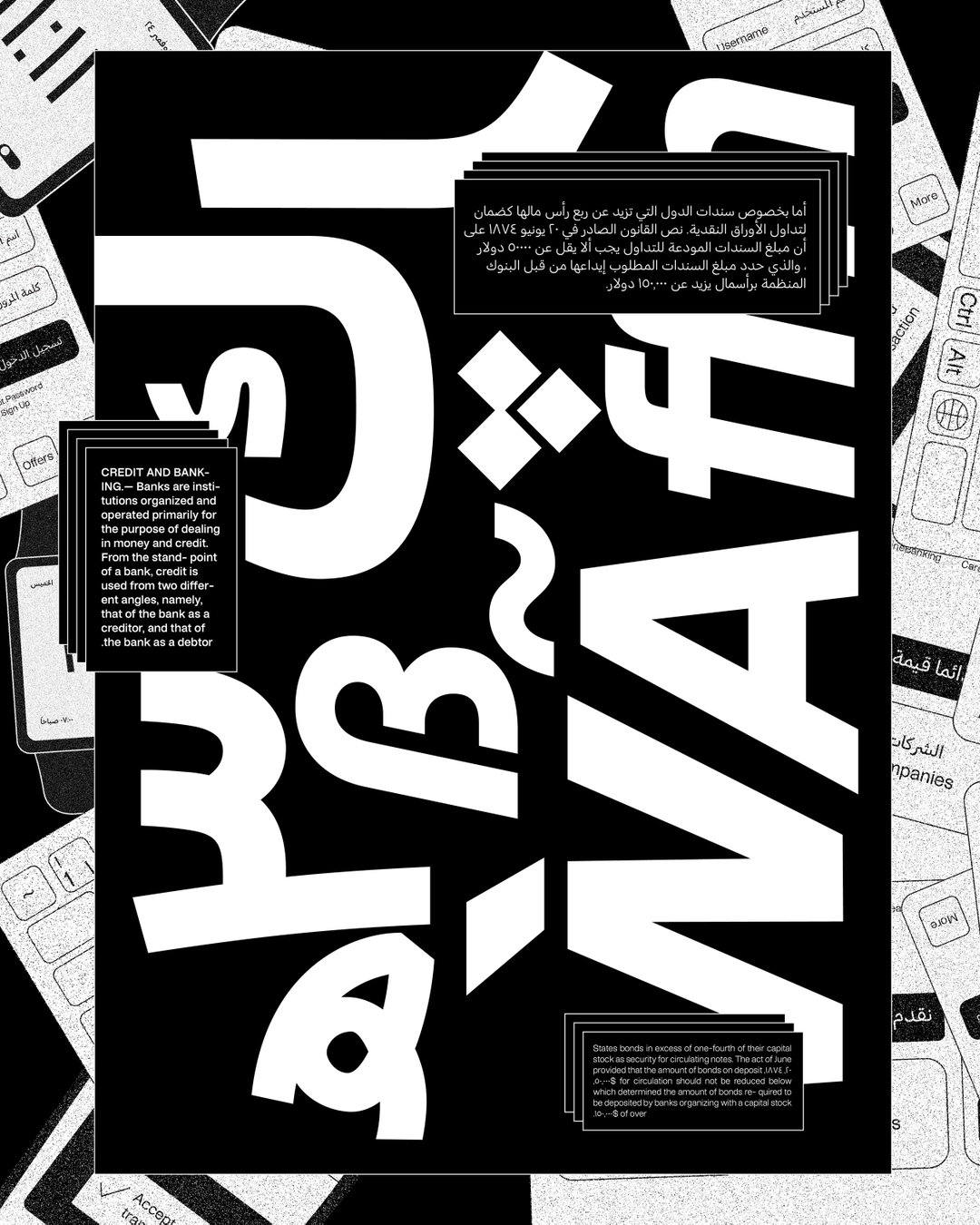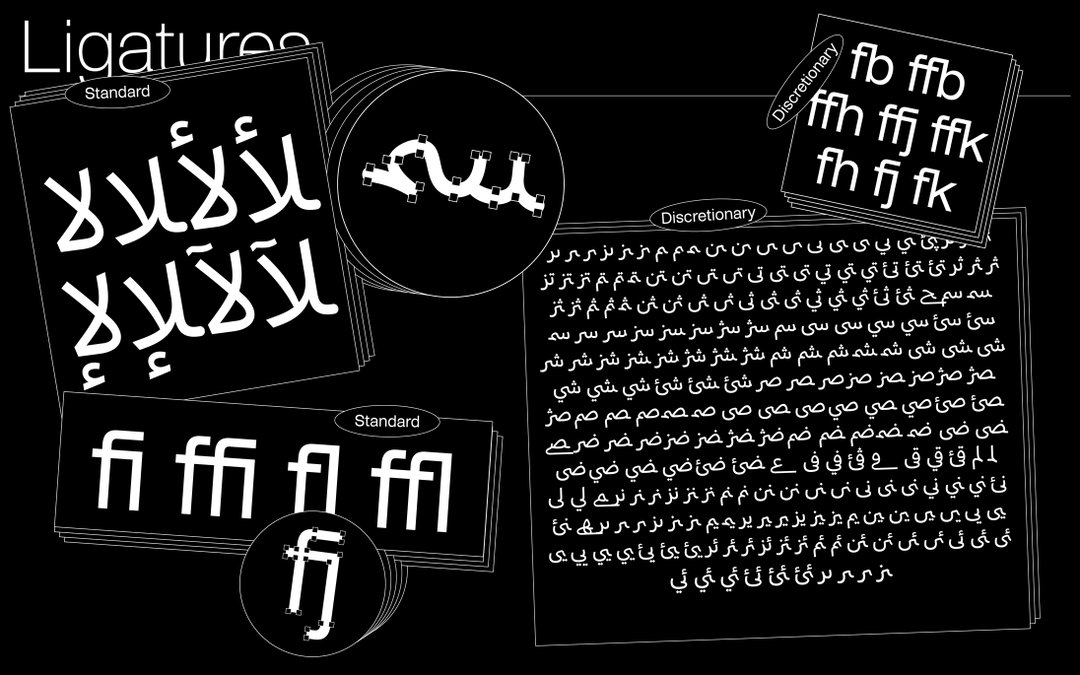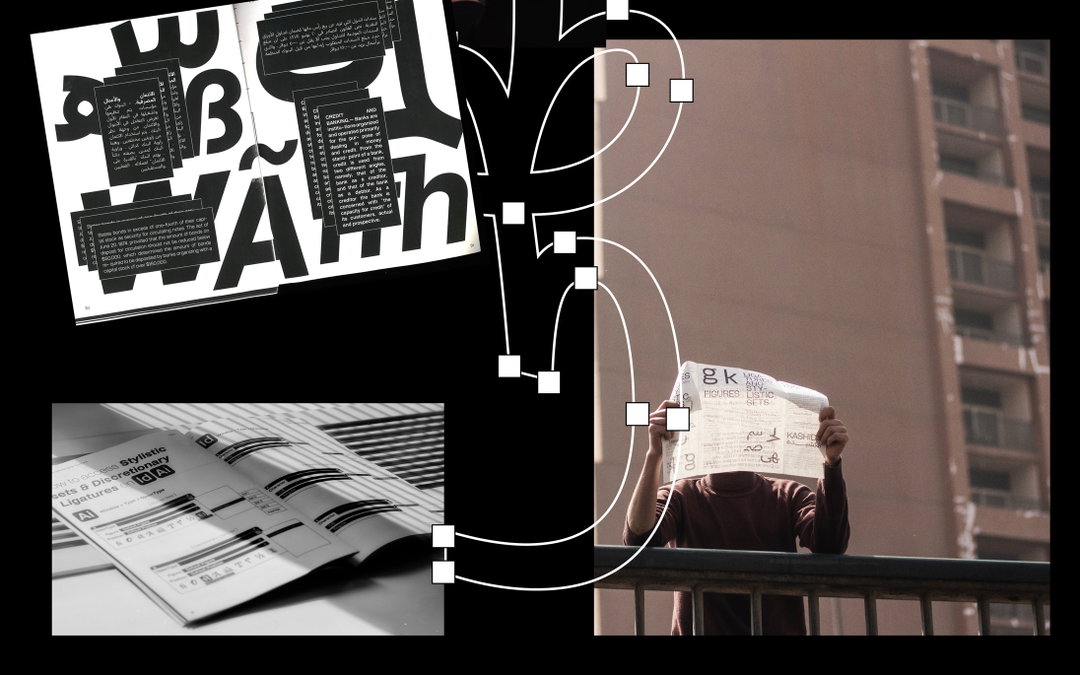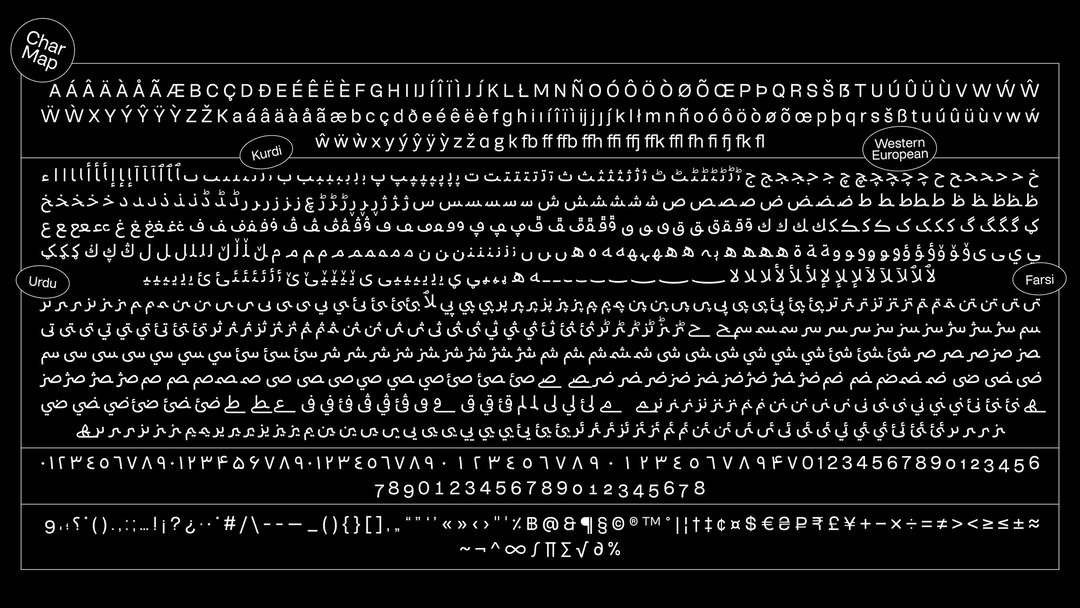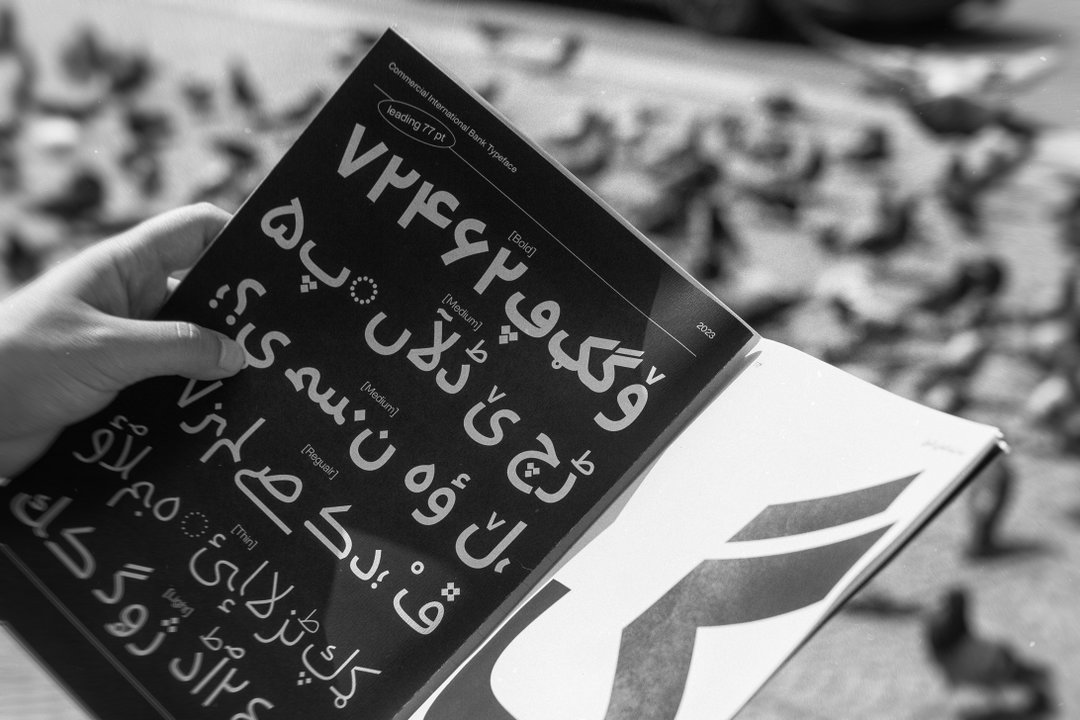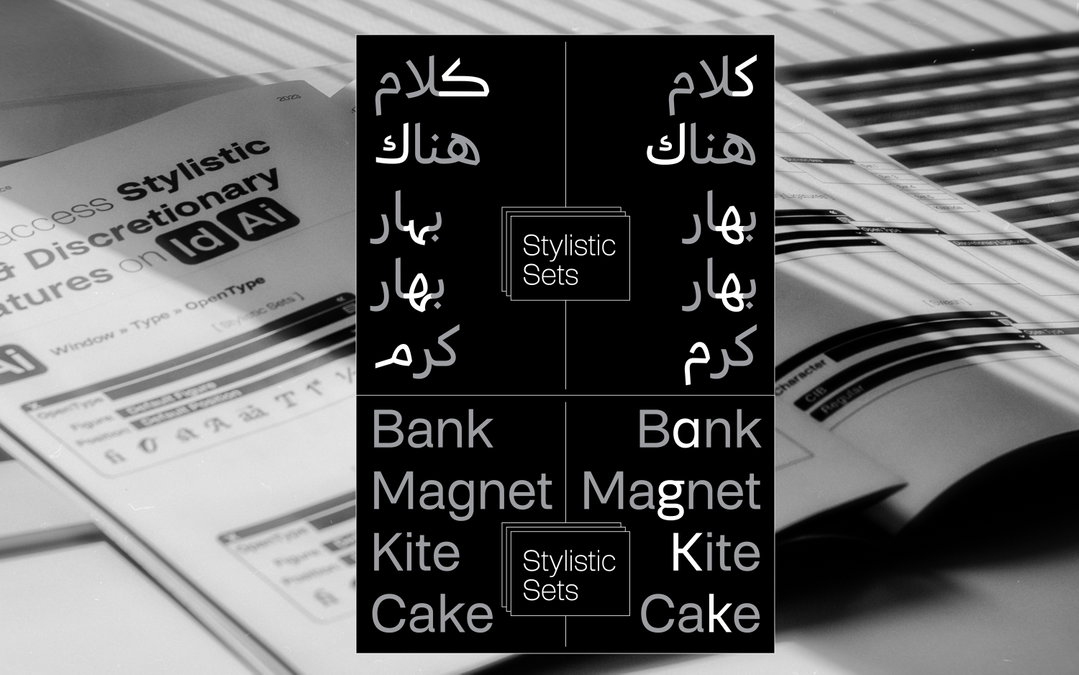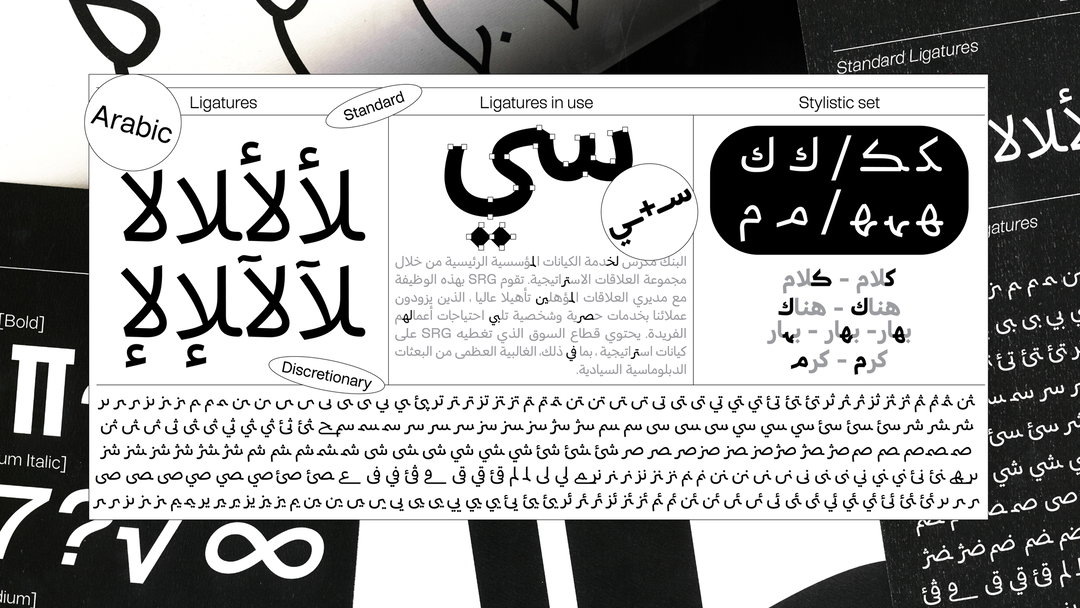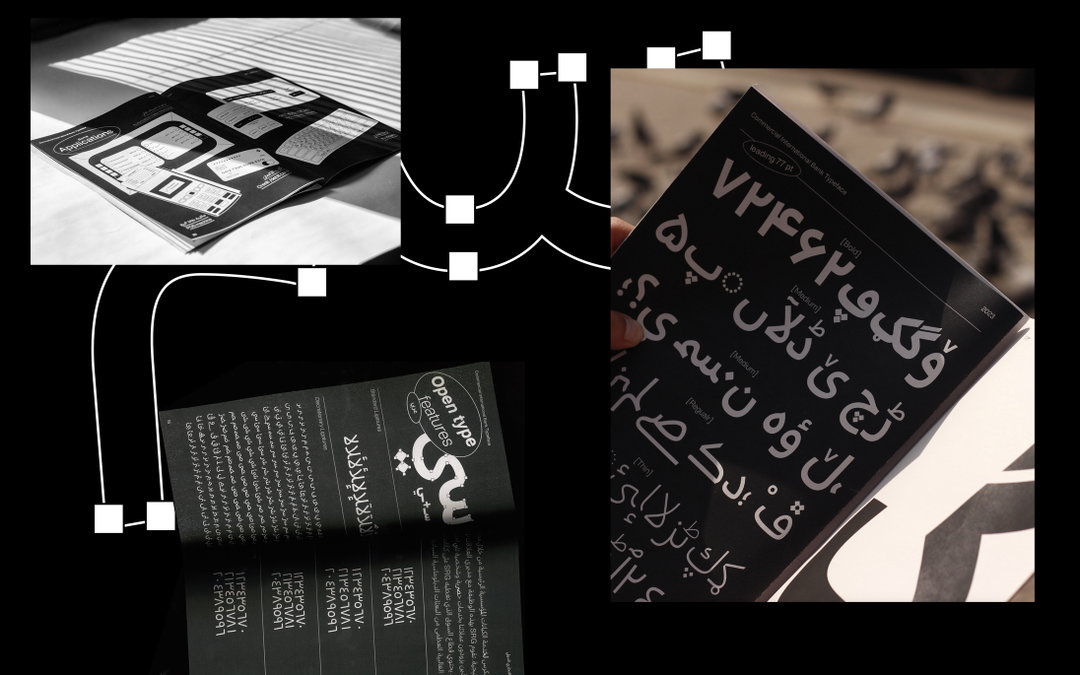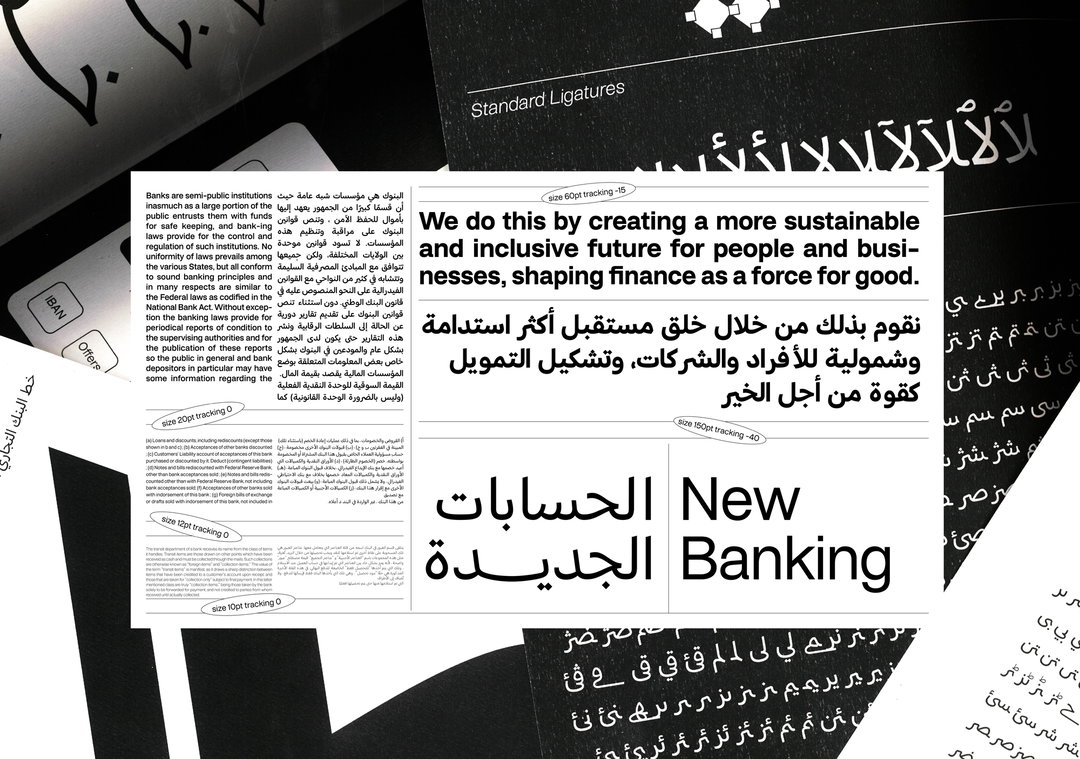
Ntsal and Boharat unveil the very first custom typeface for a bank in Egypt
Rather than relying on a “matching making approach” – whereby Arabic follows Latin letterforms – CIB’s bi-scriptual typeface honours both equally.
Ntsal’s chamber of design – the design wing of the Cairo-based studio – has produced the first custom typeface for an Egyptian bank with Boharat, the Arabic type foundry. The work is for one of the largest banks in the Egyptian private sector, CIB, and marks a growing shift in attitudes and approach in the commercial sector towards type design. In this case, Ntsal Cairo and Boharat have replaced CIB’s previous design approach, in which Arabic scripts followed Latin letterforms, by creating the two in parallel.
“The starting point while approaching this project was to create something that prioritises the language of the country the client operates from – in this case Arabic,” the studio tells us. “Ntsal’s collaboration with Boharat Type Foundry involved extensive research into Arabic typography, specifically in terms of drawing and proportions of the letters.”
CIB Custom Typeface is grotesque with multiple weights for use across different channels; it supports basic Latin and Arabic, as well as Western European characters, Urdu and Persian. Stylistically, it offers a fresh take on CIB’s original Naskh Arabic Script – the legible benchmark used for Arabic letterforms when typesetting long paragraphs.
The overarching aim for Ntsal and Boharat was to create a sense of harmony between both Arabic and Latin scripts. More specifically, the pair were trying to create a monolinear typeface that could work with the “organic flow of Arabic calligraphy”. On the journey to represent Arabic calligraphy authentically, one of the most important elements to work in was Kashida – a type of cursive justification used in Arabic script, whereby text can be elongated, rather than using empty space. Here, the goal was to create a curved extension, “which is a genuine humanistic feature of Arabic calligraphy”, says Ntsal.
CIB includes a number of features made for bank-specific usages. It is optimised for both high and low res screens, legible in small print sizes and has OpenType features for display purposes. This is useful when it comes to ATM screens and digital channels but also for annual reports and advertising.
For Ntsal, the landmark move from CIB to invest in type design at this scale says a lot; “We’re taking a moment to celebrate this whole thing. We’re enjoying the idea of type design getting more opportunities and becoming more recognized in Egypt,” the studio reflects. “A customised typeface offers a compelling opportunity for both designers and brands, to highlight the tonality and purpose of the brand across the different communication channels. Additionally, this positions CIB as pioneers in the Banking field in Egypt as they are the first Bank to have their own custom typeface.”